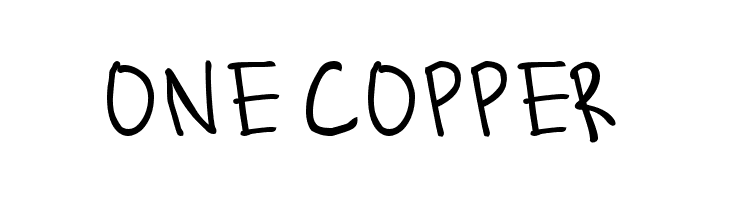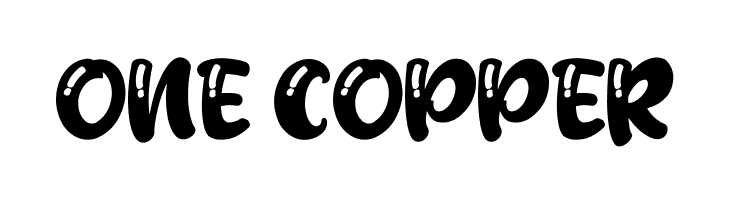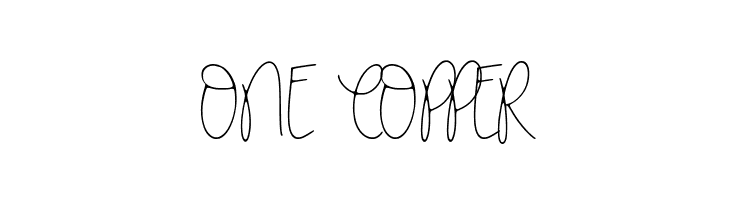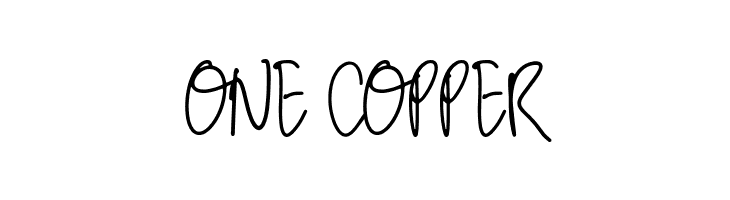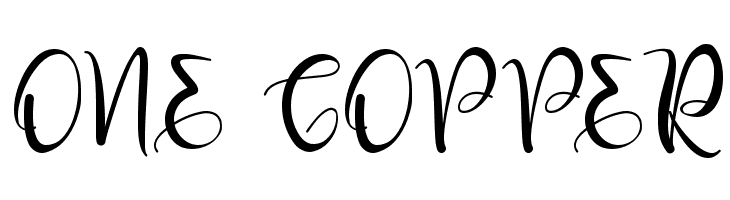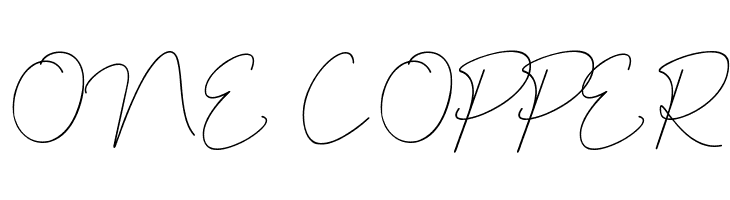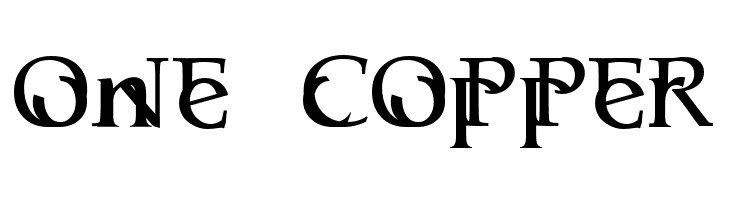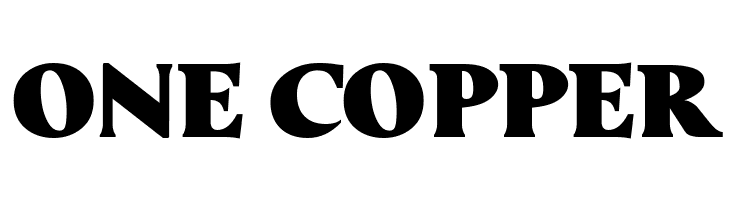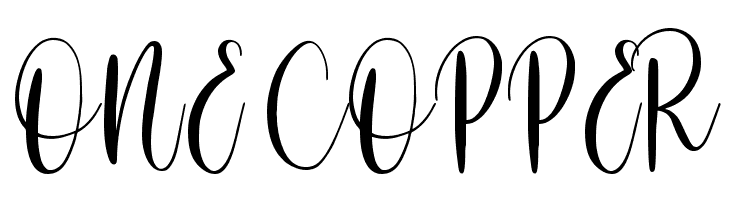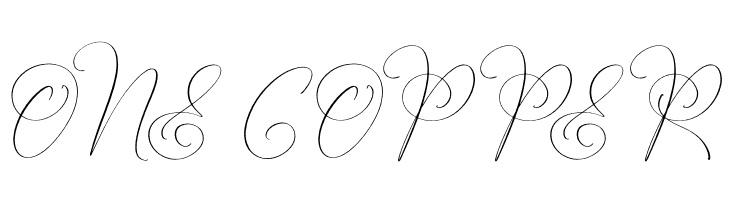
A bold, playful outline font with a bubbly, cartoonish style.
A bold, festive display font with cloud or snow accents.
A bold, playful handwritten font with smooth, flowing lines and a casual style.
A bold, handwritten font with fluid strokes and a casual, energetic style.
A school-themed icon font with bold, detailed illustrations.
A bold, rounded font with a modern and playful aesthetic.
A playful, handwritten font with fluid, slightly irregular strokes.
A playful, hand-drawn font with a quirky and whimsical style.
A playful handwritten font with a whimsical and informal style.
A pictorial display font featuring iconic sculptures as glyphs.
A whimsical, handwritten font with a playful and casual style.
A dynamic and artistic script font with elongated strokes and bold numerals.
Hand-drawn, museum-themed decorative font with illustrated characters.
A bold, angular font with a playful and dynamic style.
A cursive, handwritten font with elegant curves and a modern touch.
A bold, expressive script font with interconnected characters and a handwritten style.
A graceful and decorative script font.
A bold, cursive script font with dynamic, flowing strokes and decorative flair.
A flowing, elegant script font with artistic swashes and flourishes.
A bold, high-contrast serif font with dramatic, angular serifs.
A bold, high-contrast serif font with dramatic, angular serifs and unique embellishments.
A whimsical and elegant cursive font with decorative flourishes.
A bold, geometric outline font with a modern, futuristic style.
A raw, expressive hand-drawn font with dynamic, irregular strokes.
A graceful, cursive script font with elegant, flowing lines.
A bold, geometric font with sharp angles and a strong, industrial presence.
A bold, geometric font with a futuristic and assertive style.
A bold, italicized font with a dynamic, angular design.
A bold, italicized font with sharp, angular edges and a futuristic look.